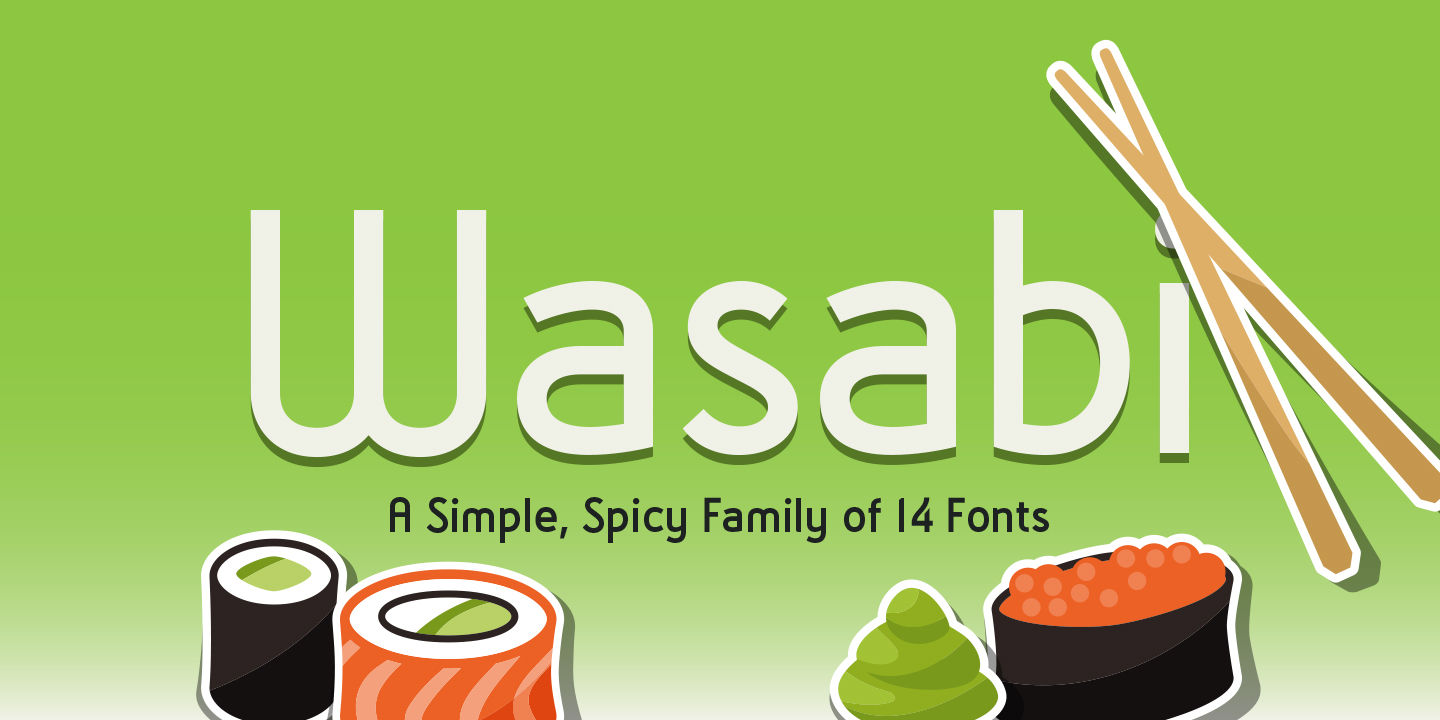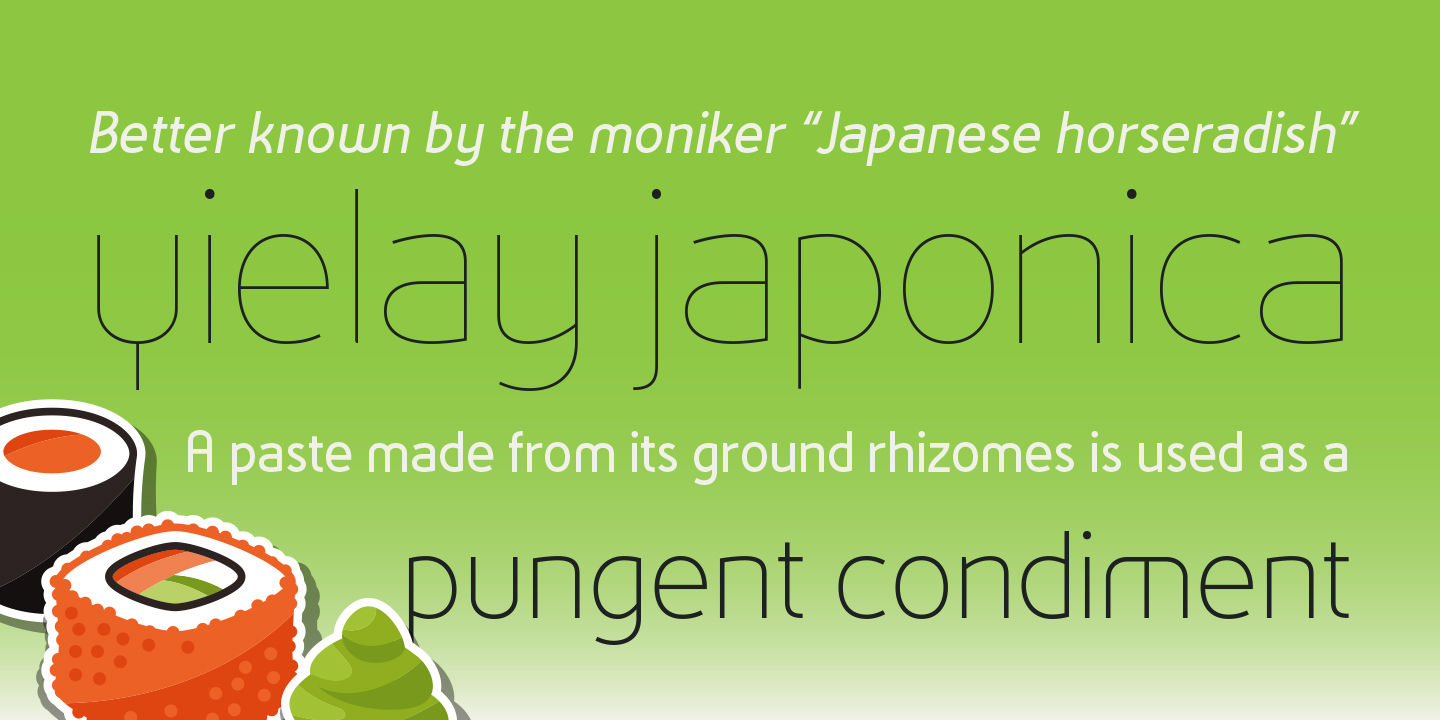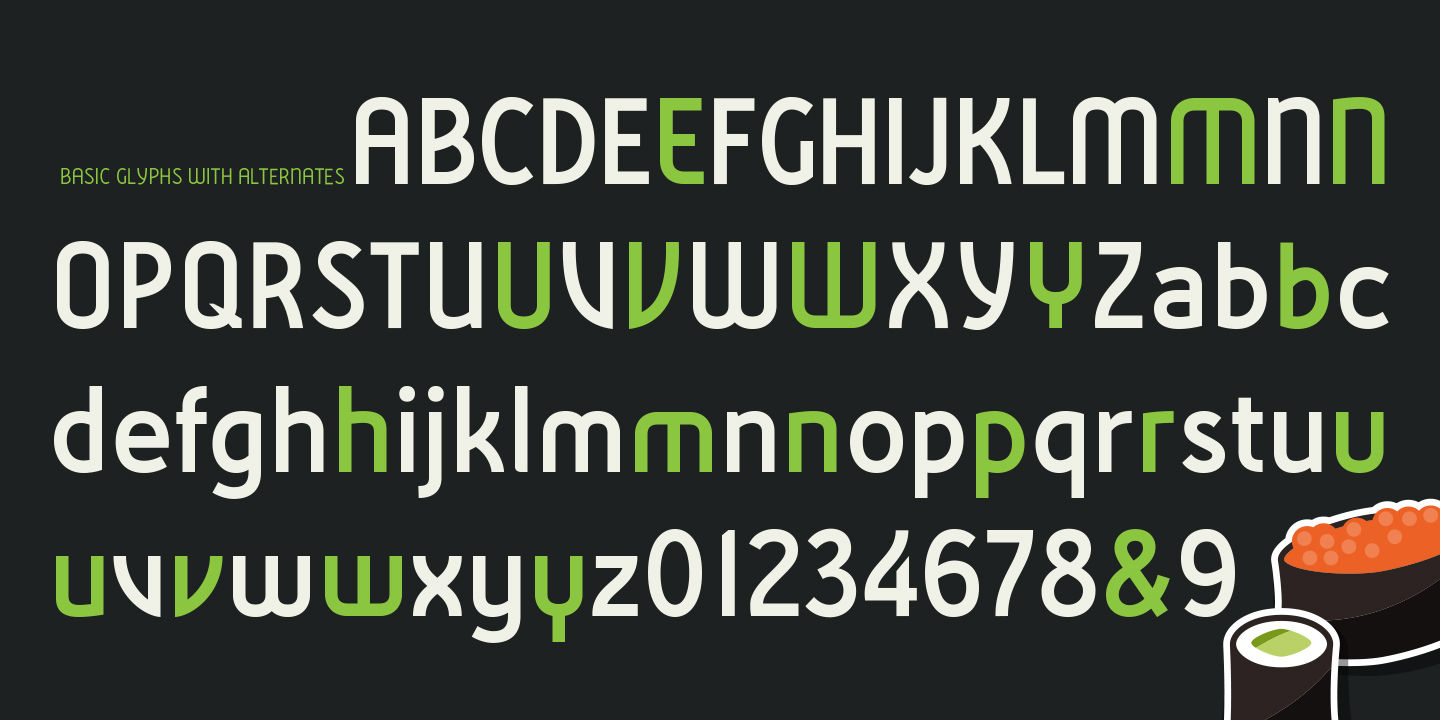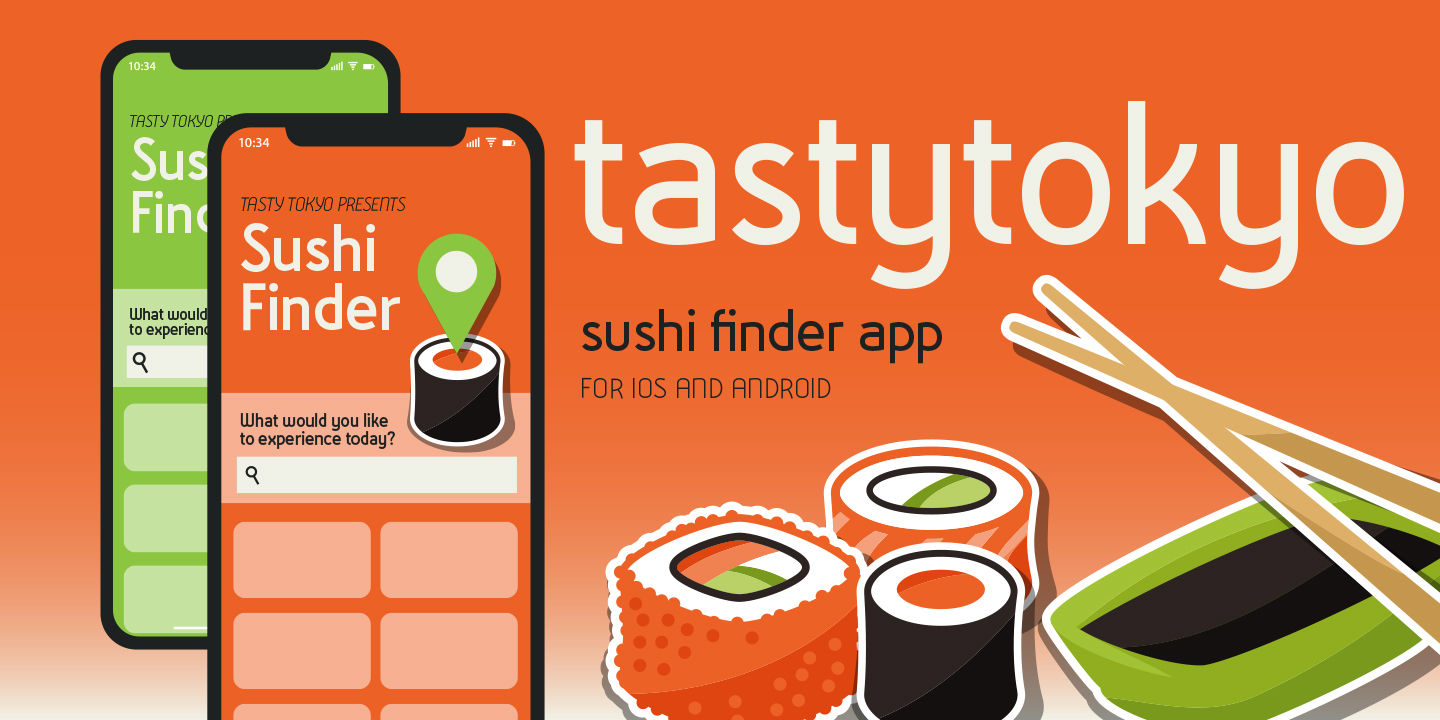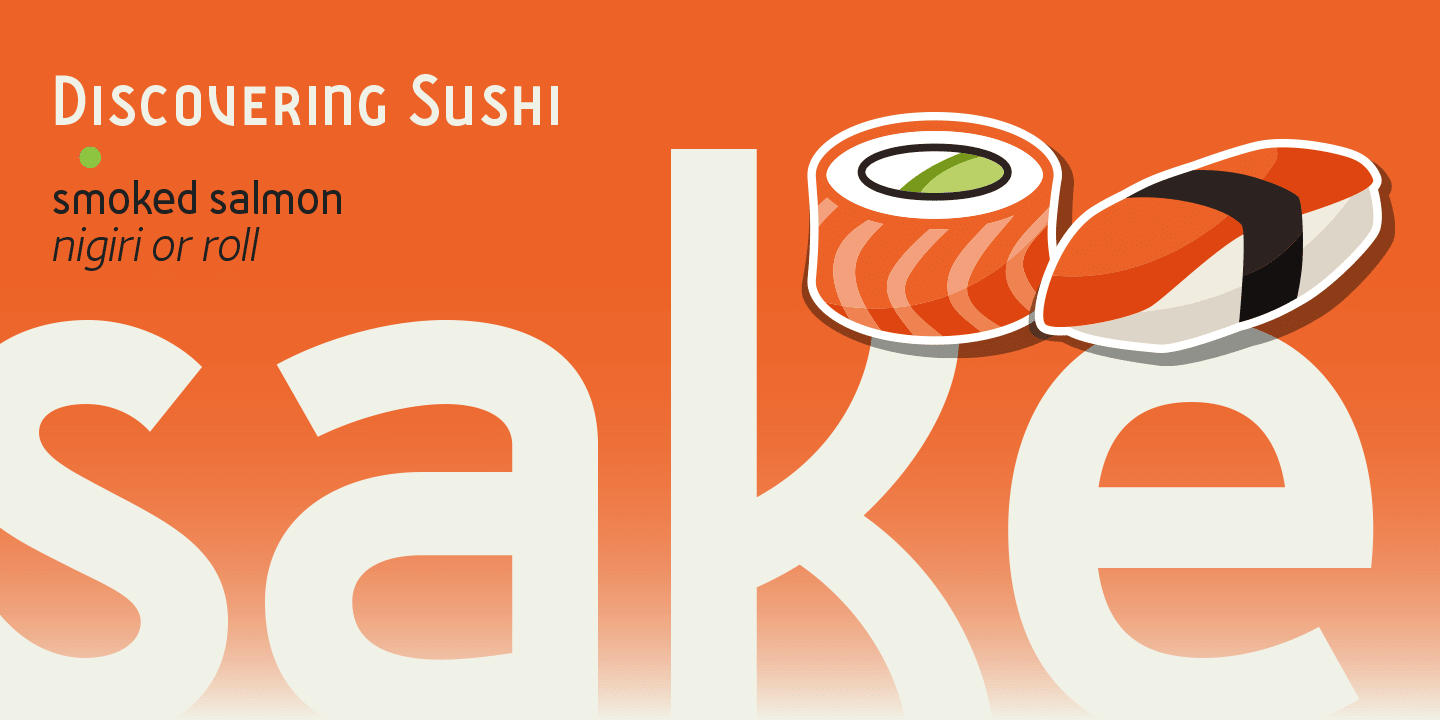
Wasabi
Styles:14
Small Caps
Small Capssmcp
1/2 3/4 5/8 7/16
Fractionsfrac
2nd 501st
Ordinalsordn
E N M V W Y e n
Stylistic Set 1ss01
Remastered in 2019. Wasabi is the re-imagining of my very first release, Iru. Like Iru, Wasabi was heavily influenced by the monument lettering style, Vermarco.
The simple, geometric forms allowed for small lettering sizes to be sandblasted cleanly and has been a monument lettering workhorse for decades…the only issue centered around the lack of a lowercase or any other letters beyond the 26 uppercase glyphs and the numerals. Wasabi solves this with the same simple, efficient line reminiscent of the old Vermarco while bringing it into the 21st century. Visual and optical incongruities of the original uppercase were replaced with new interpretations for the capital letters, a new lowercase and small caps was produced and the original single weight alphabet was replaced with six new weights.
Wasabi has several ‘lighter’ weights primarily because the thin lines and simple transitions produce very elegant relationships…and I wanted to make sure those relationships could be explored regardless of the scale of letter. Stylistic Alternates show up through the upper, lowercase and small cap glyphs that attempt to simplify these shapes even more when the opportunity arises.
Wasabi is as much a utilitarian typeface as it is a headline face. This realization led to the decision to produce a companion Condensed version shortly after the initial regular weights were developed and tested; so, try them all!